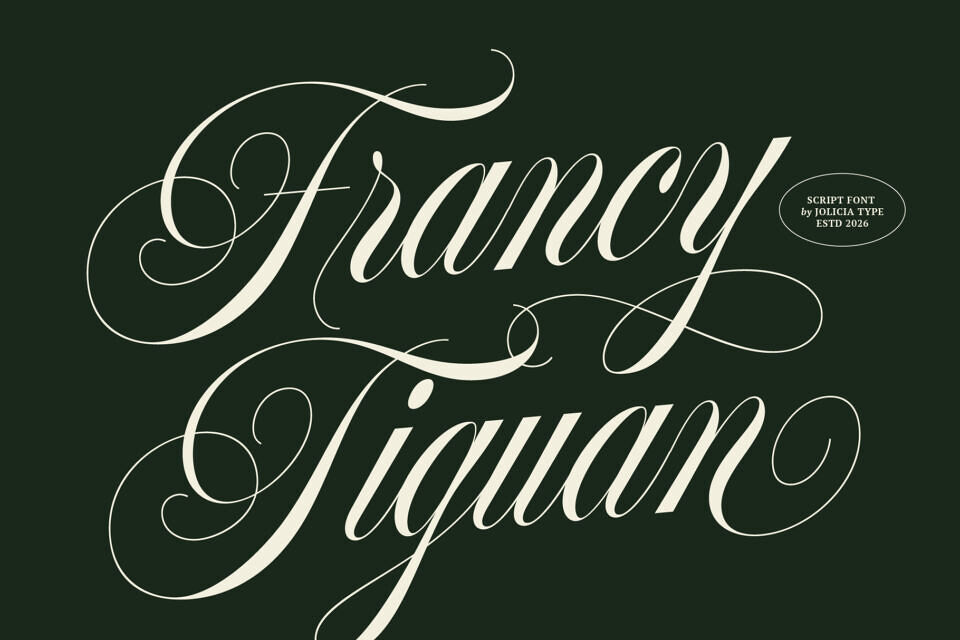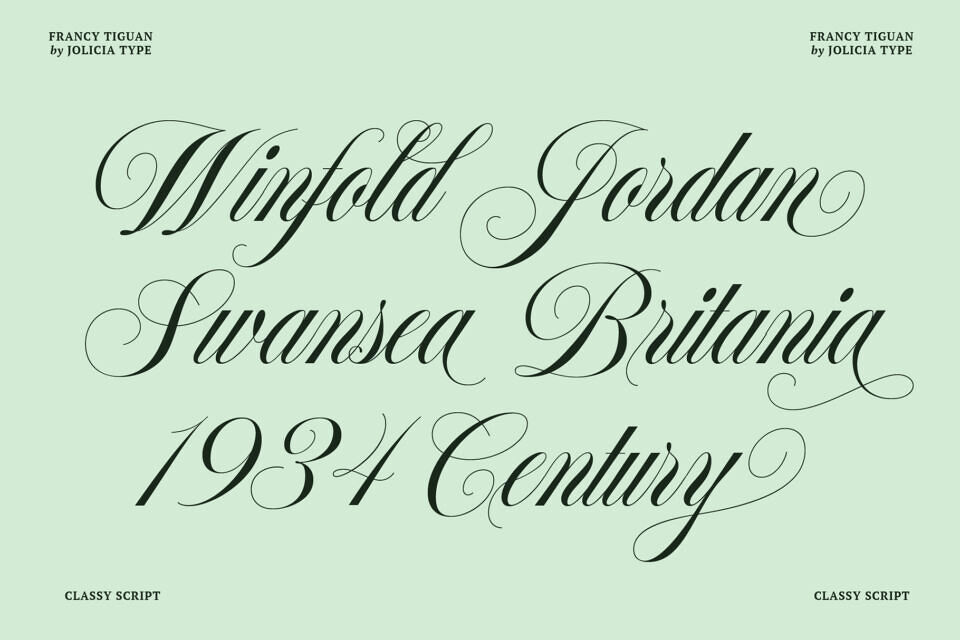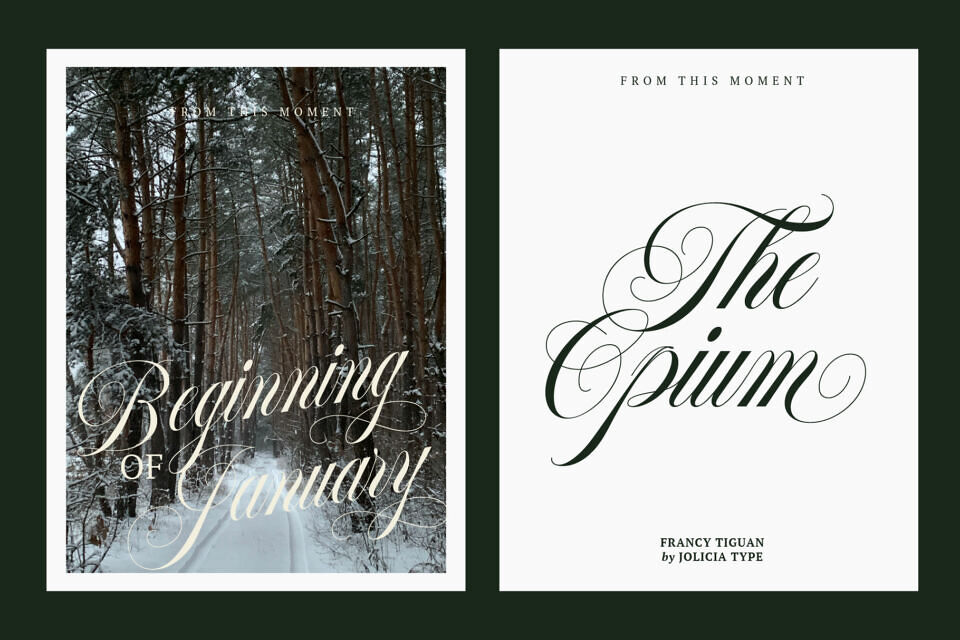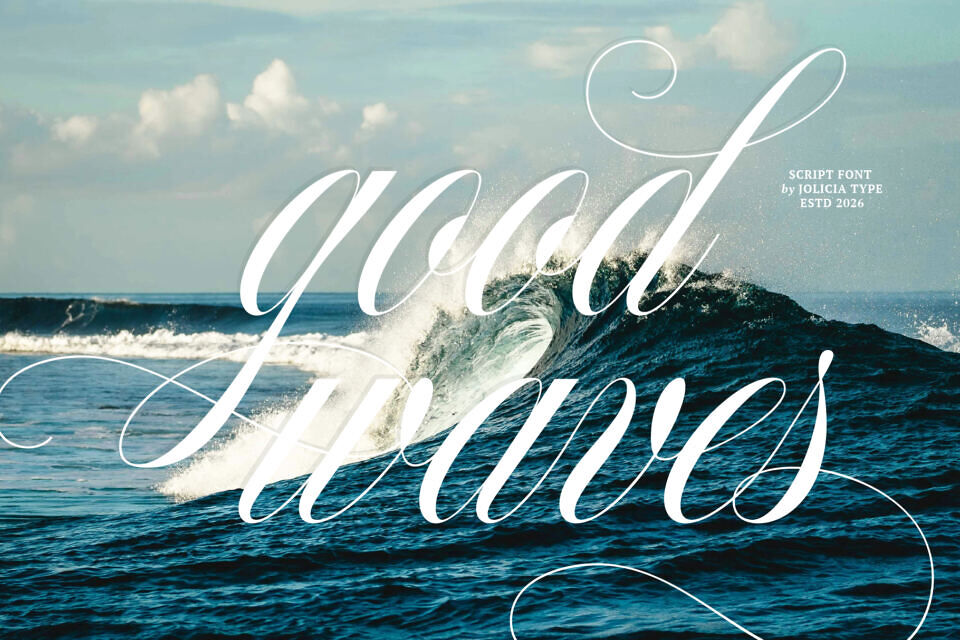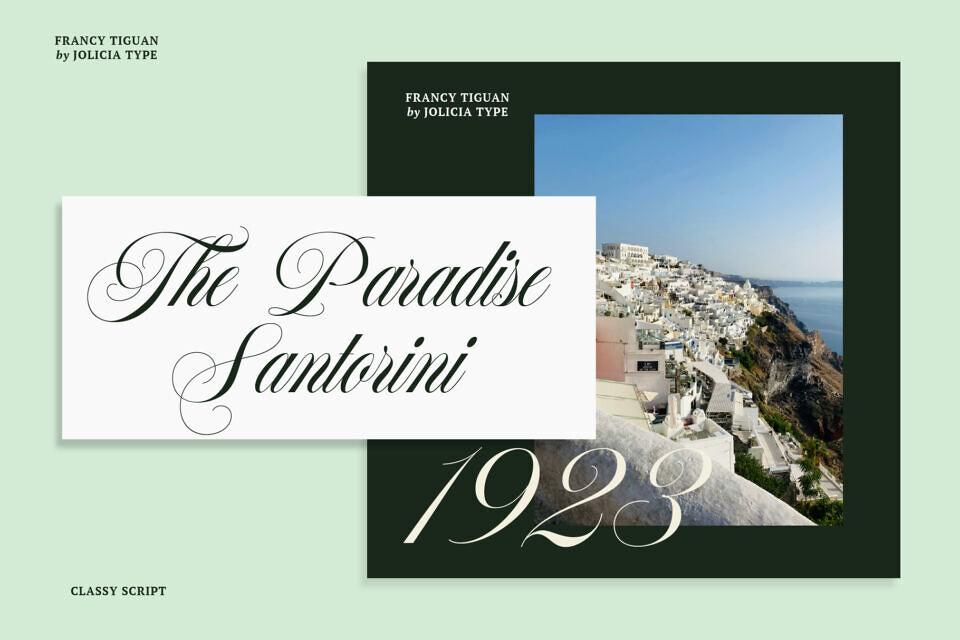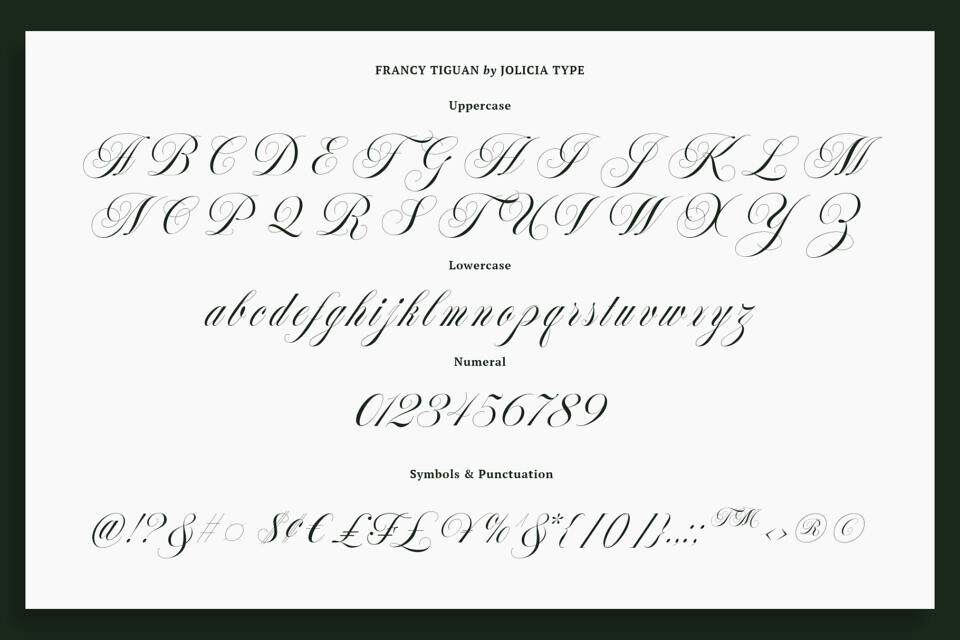
Francy Tiguan is a classy script font that combines elegant calligraphy with modern luxury aesthetics. Designed with flowing swashes, graceful curves, and refined letterforms, this font delivers a sophisticated and romantic impression perfect for premium branding.
Its stylish handwritten look makes Francy Tiguan ideal for wedding invitations, feminine logos, fashion branding, beauty packaging, social media quotes, editorial design, and luxury typography projects.